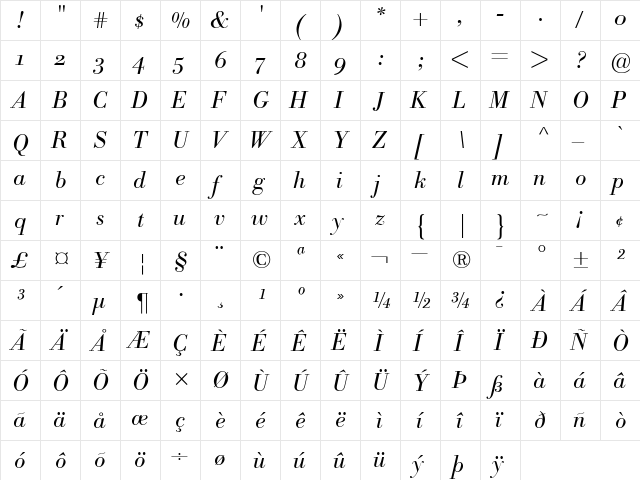
BodoniBEOldstyleFigures-Light LightItalic Font Preview
Design Context for BodoniBEOldstyleFigures-Light Typeface
BodoniBEOldstyleFigures-Light brings classic typographic sensibility to the table — its serifs and measured letterforms reflect centuries of print heritage. The slanted form adds forward momentum and visual energy. Its slender proportions lend an understated elegance to any composition.